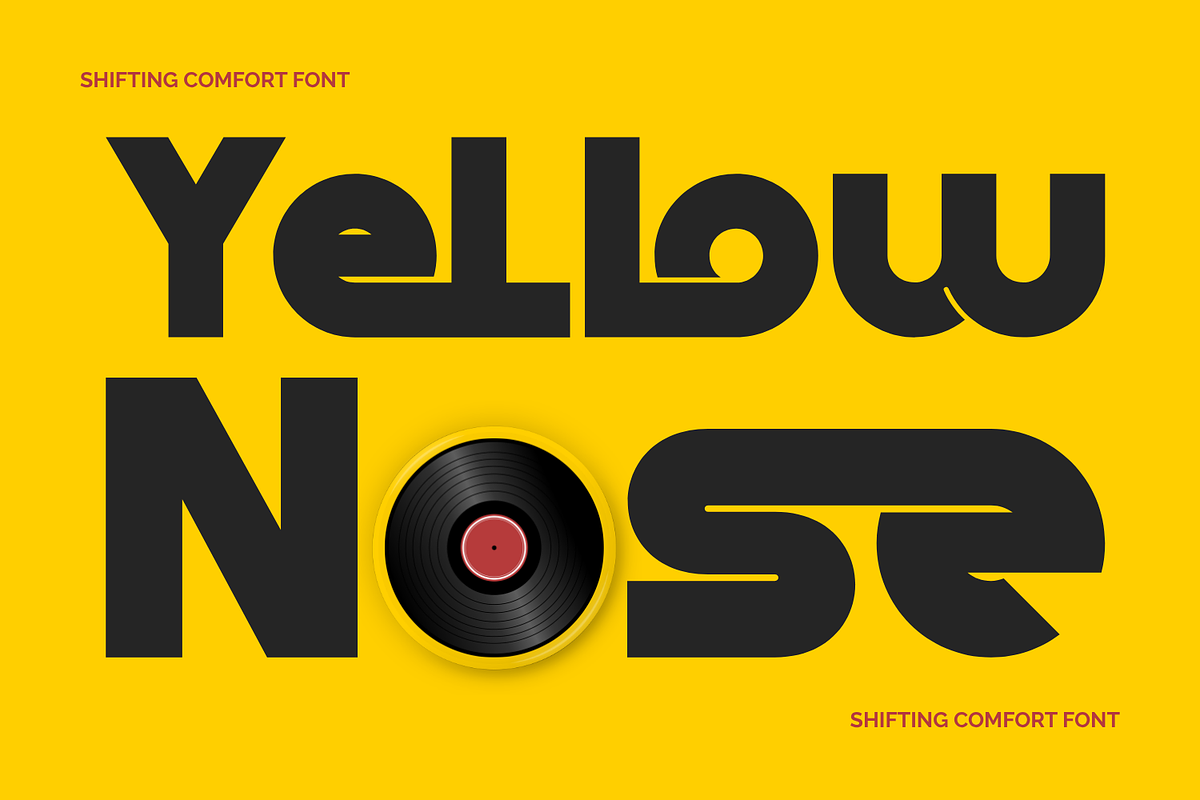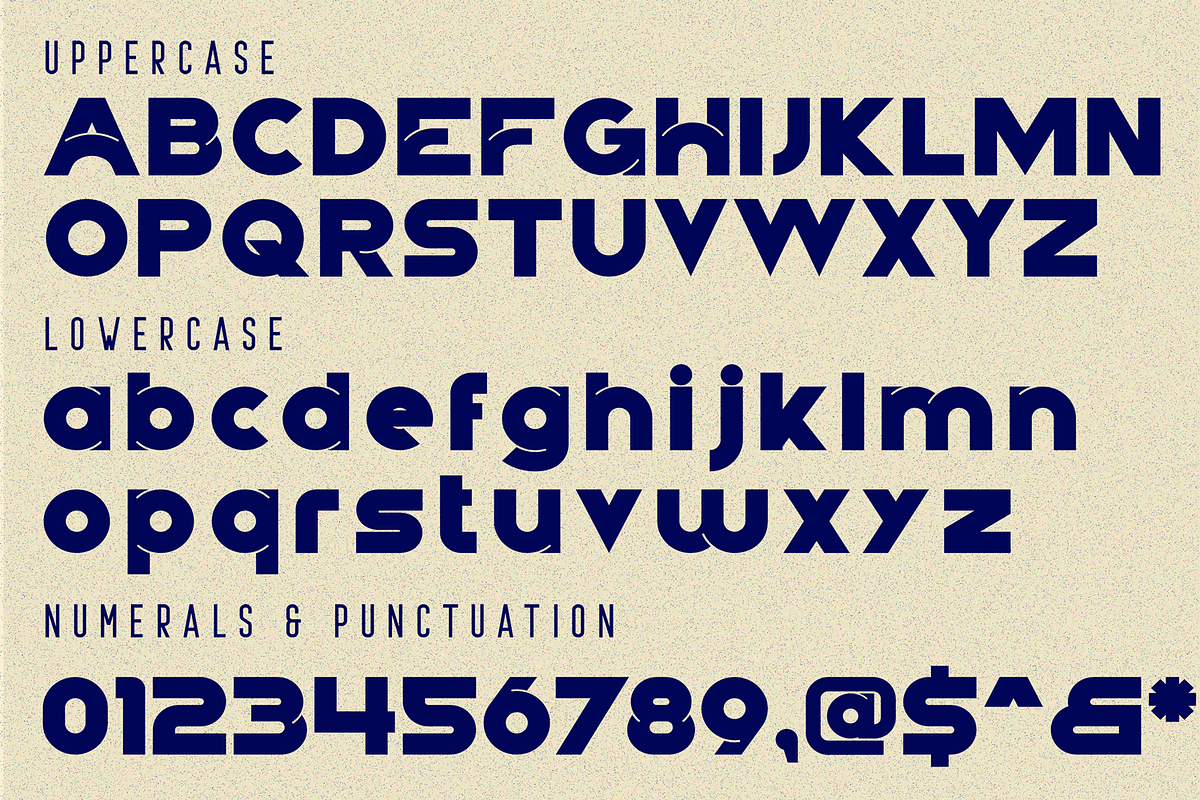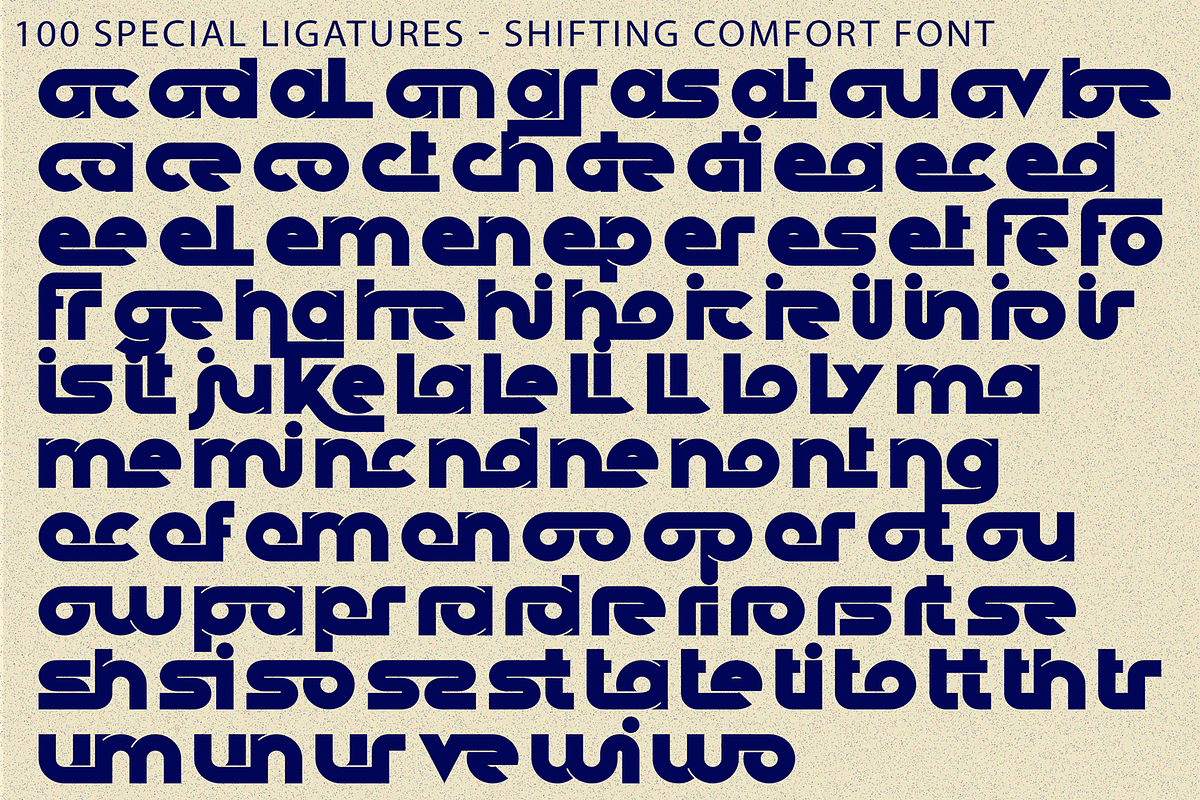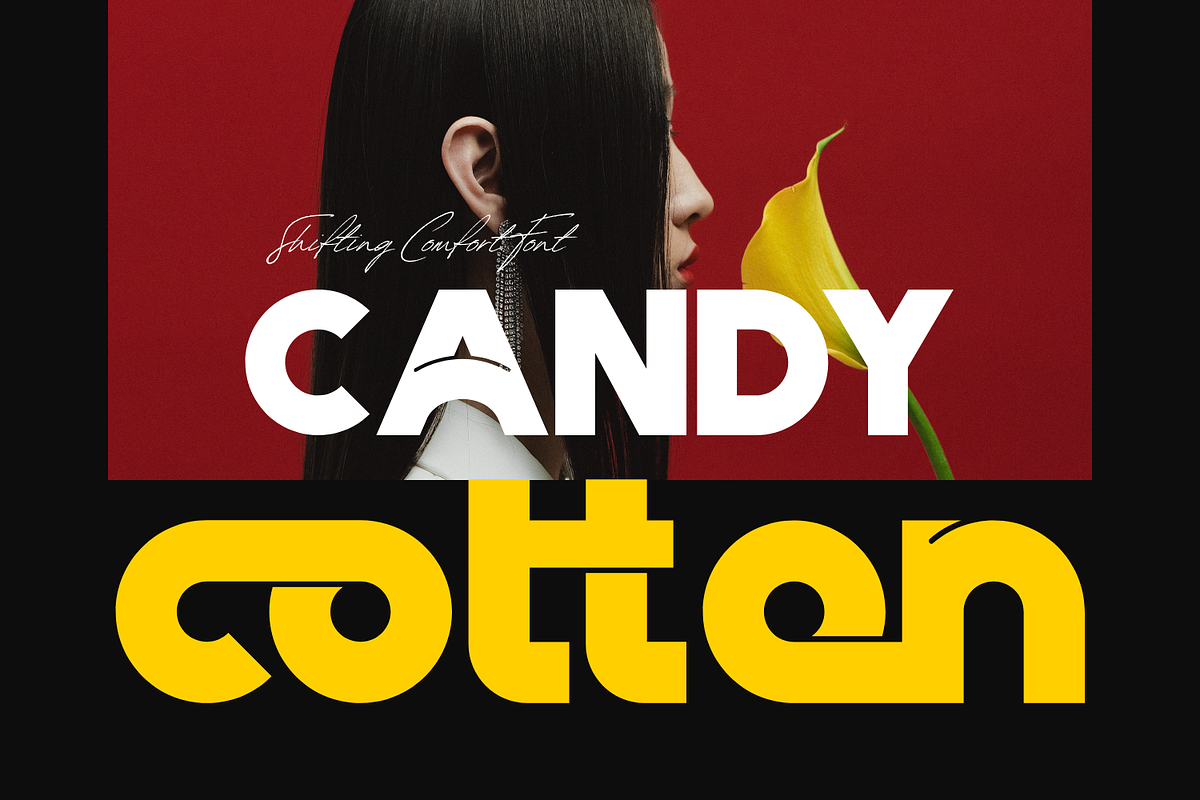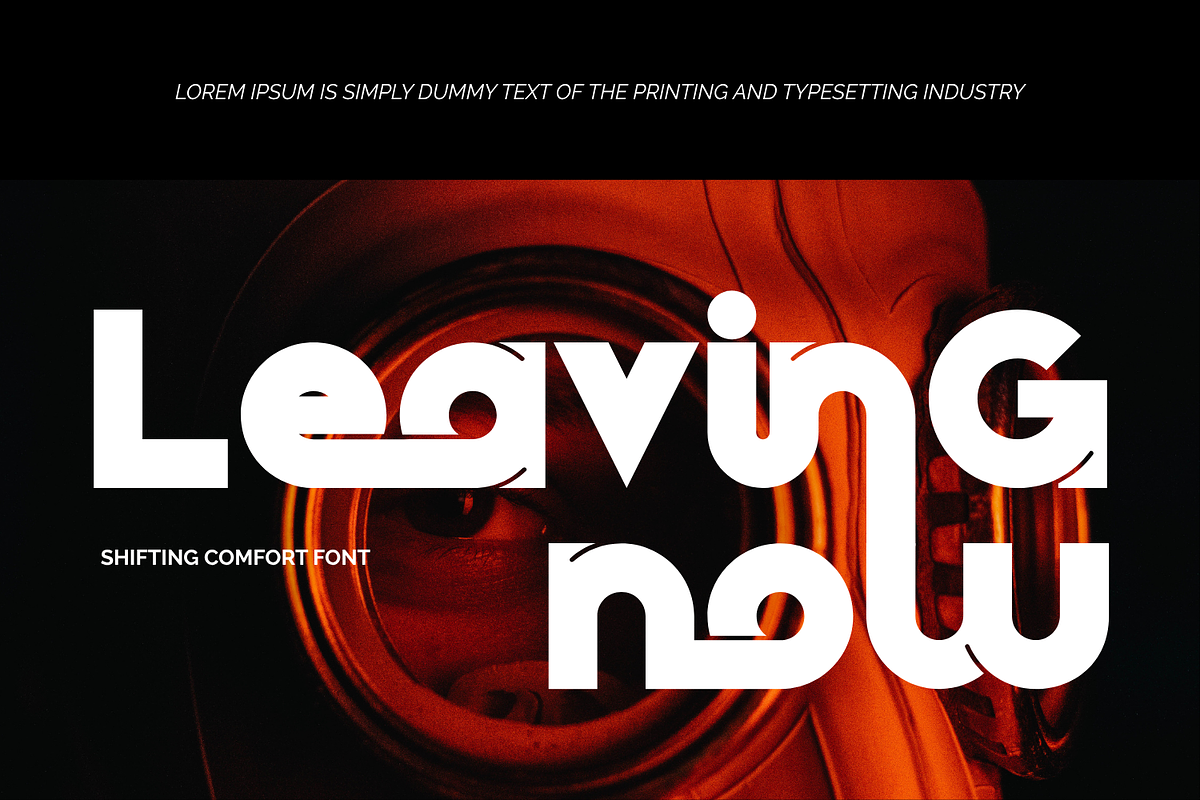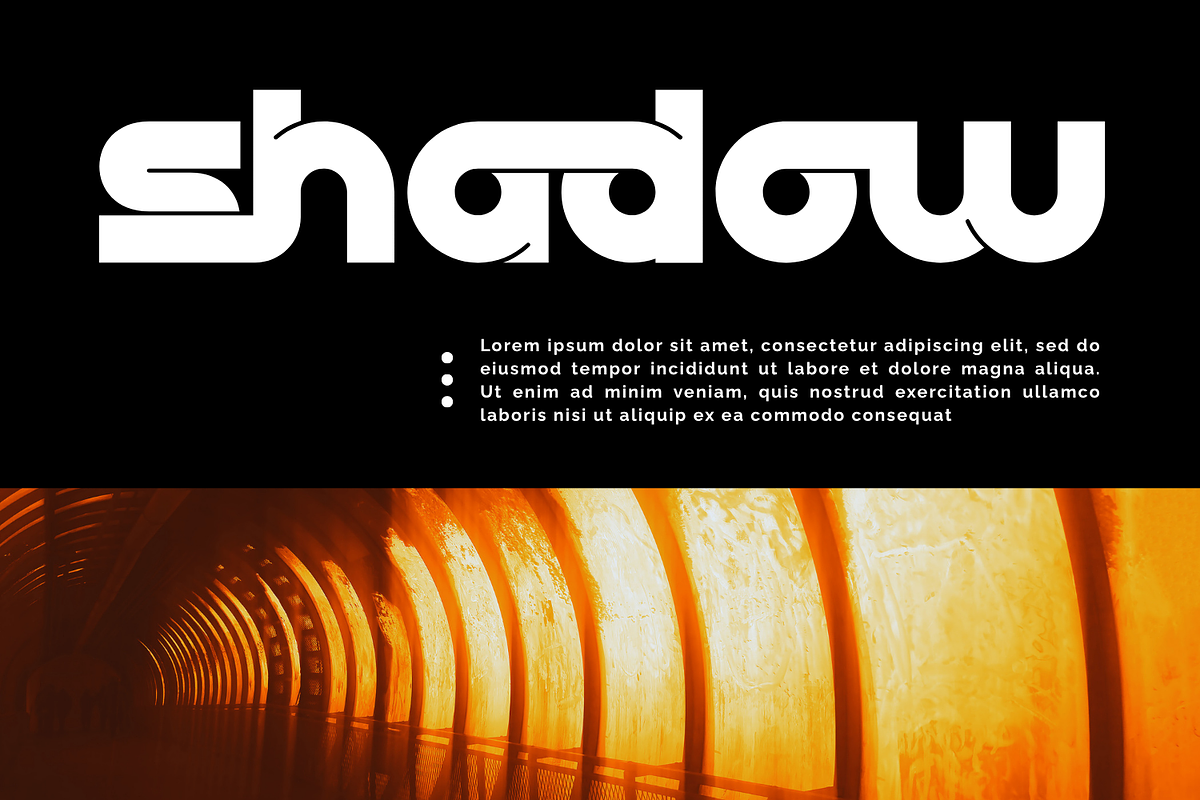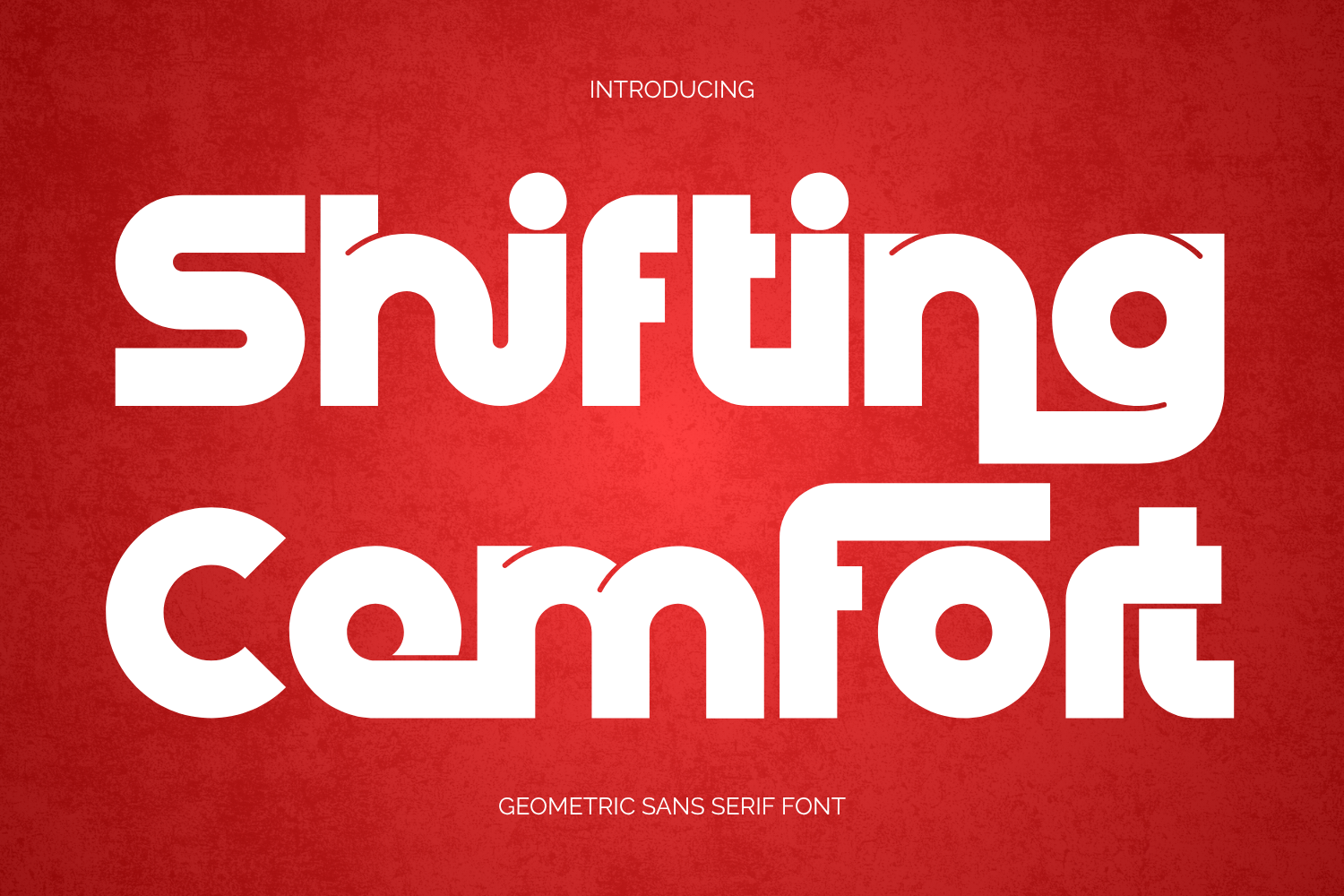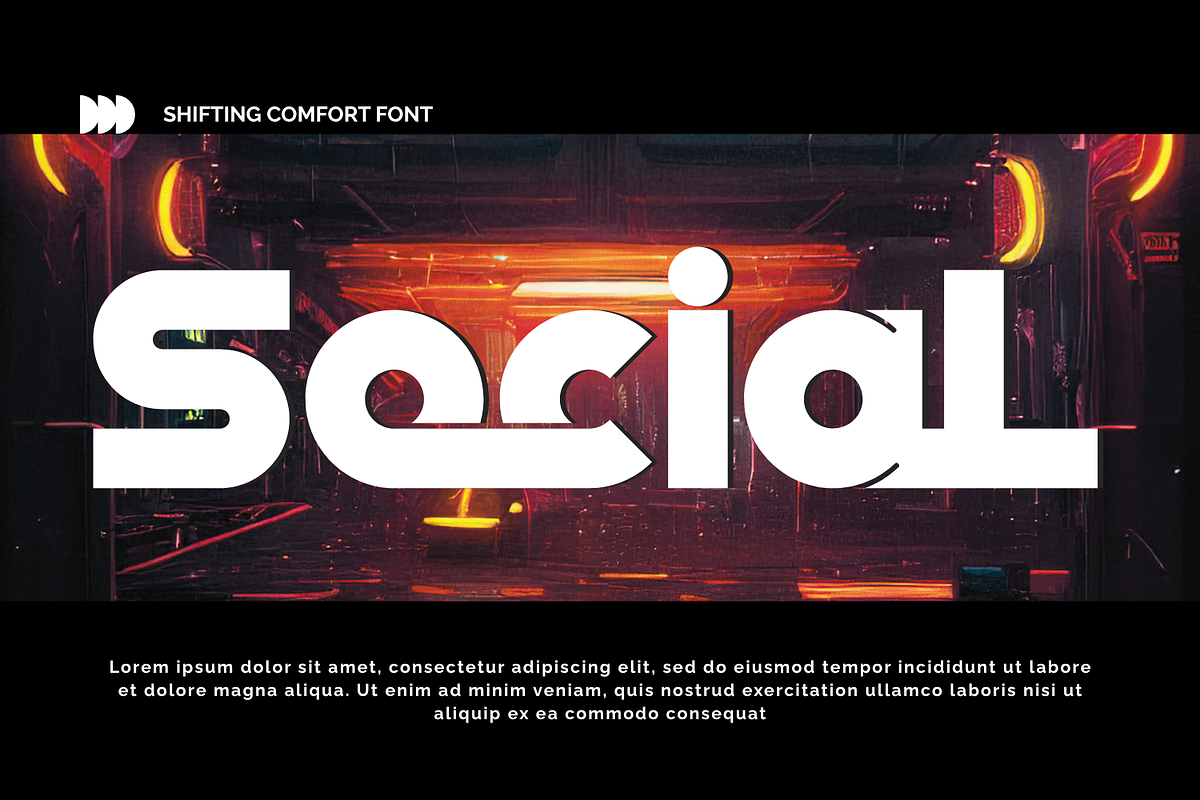
Shifting Comfort - Geometric Font
Shifting Comfort - Geometric Font is a bold geometric sans-serif display font that combines modern minimalism with retro-futuristic charm. Built with strong monoline strokes, smooth rounded corners, and clean geometric forms, this typeface delivers a confident and approachable visual presence. Its balanced proportions and distinctive curved details create a unique personality that feels both contemporary and timeless. The soft edges add warmth while maintaining the precision and clarity expected from a modern display font, making it highly versatile across a wide range of creative applications.
🔤Features:
Uppercase & Lowercase Letters
Around 100 Special Ligatures & Alternates
Accented Characters for multilingual support
🔤About 100 ligatures combined with Stylistic Alternates Font:
ac ad al an ar as at au av be ca ce ch co ct de di ea ec ed ee el em en ep er es et fe fo fr ge ha he hi ho ie ic il in io ir is it ju ke la le li ll lo ly ma me mi nc nd ne ng no nt ns oc of om on oo op or ot ou ow pa pr ra rd re ri ro rs rt se sh si so ss st ta te th ti to tr tt um un ur ve wi wo